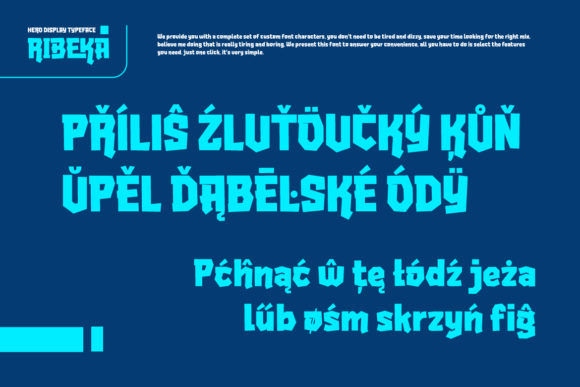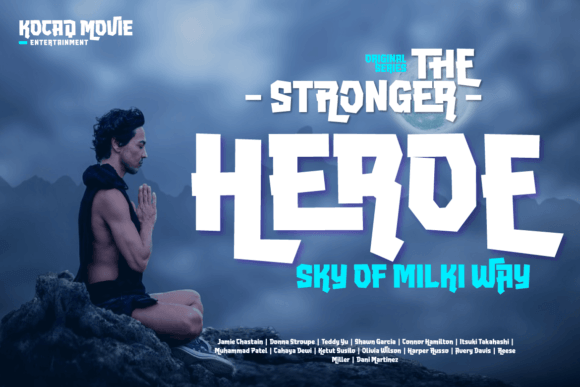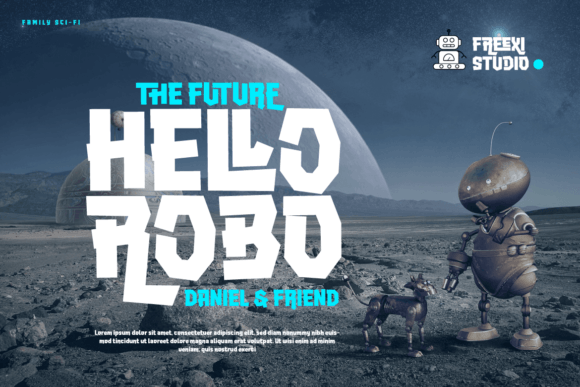
Introduction to Ribeka Font
Ribeka is a bold display font with a modern vibe and an unforgettable quality.
Its sharp and strong typefaces make it perfect for the superhero, war, or whatever posters you need what are you waiting for start using this font for a super look project.
Key Features of Ribeka Font
Why Choose Ribeka Font?
Ribeka Font offers exceptional quality and versatility, making it a valuable addition to your design toolkit. Whether you’re creating for personal projects or commercial use, Ribeka Font delivers professional results.